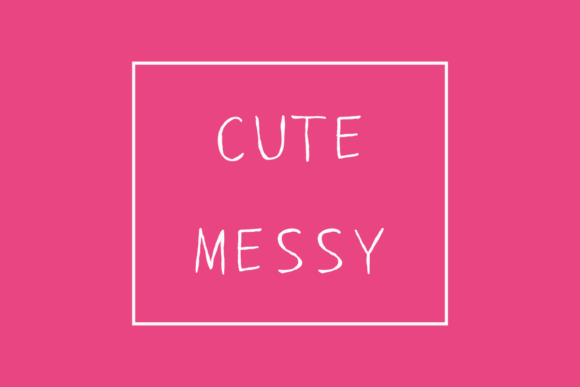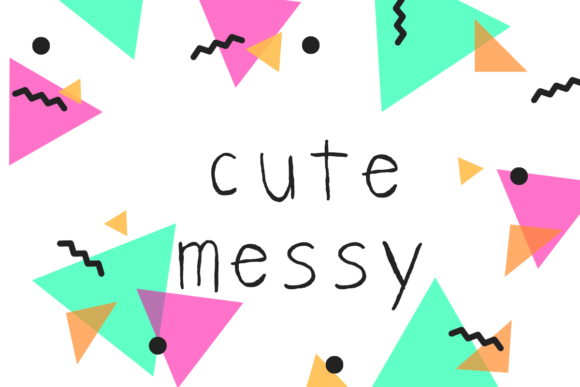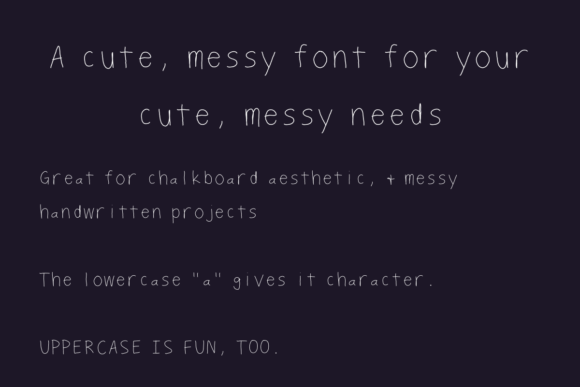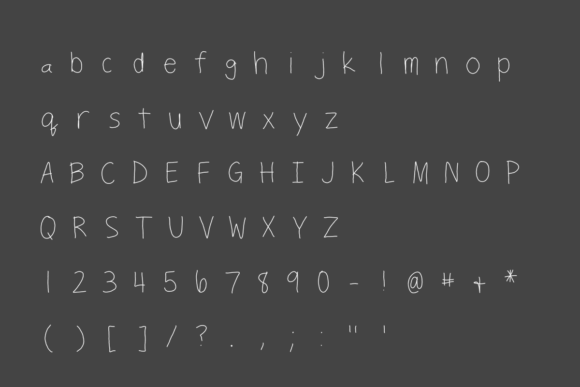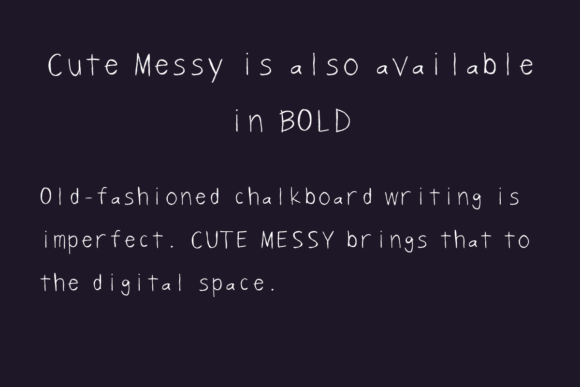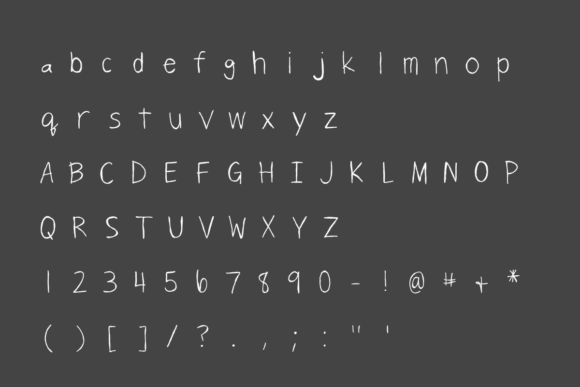
Cute Messy
About Cute Messy Font
Cute Messy is a thin lettered, and dainty handwritten font, that can be used for all chalkboard quotes or teaching material! Its authentic look and feel will add a personal and realistic feel to your designs.